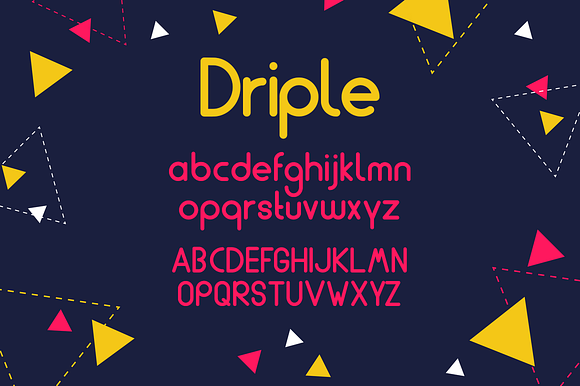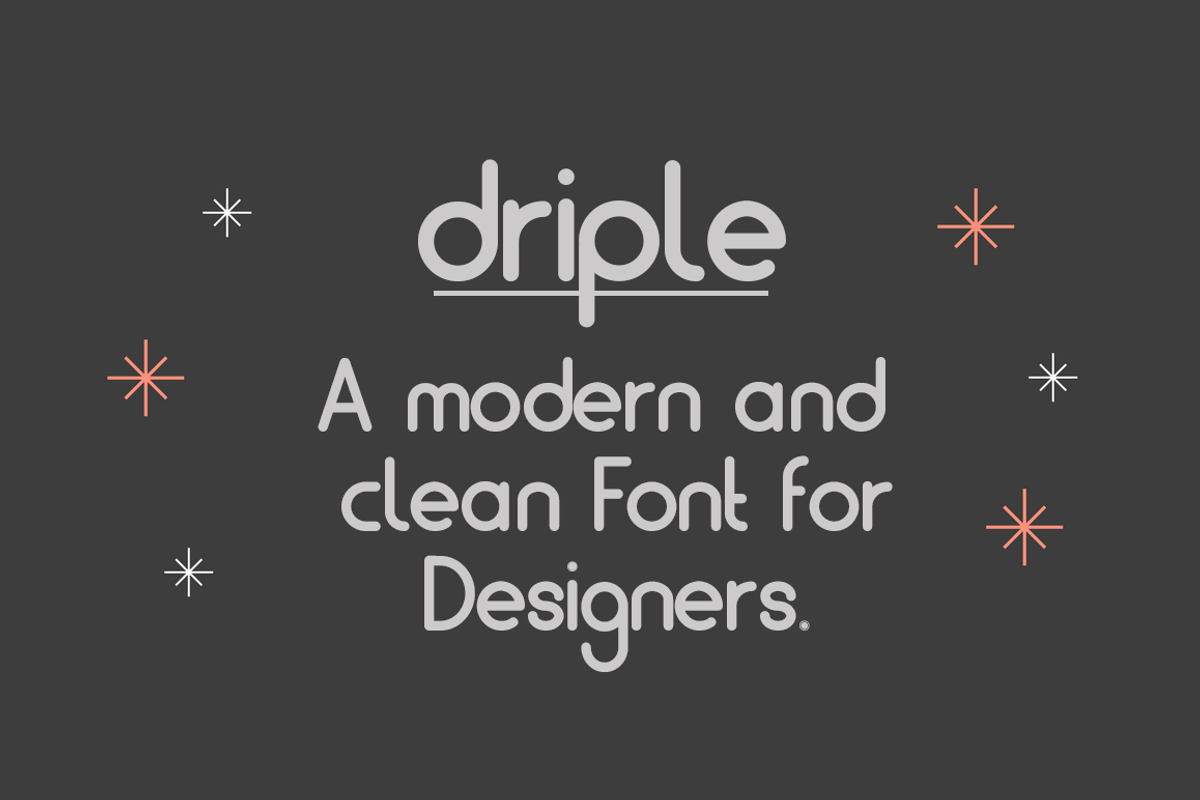
Driple - a clean modern font.
Introducing: Driple! A clean and modern round sans serif. With its modern look driple is perfect for your next project or design!
We offer 2 Variations: Thin and Regular!